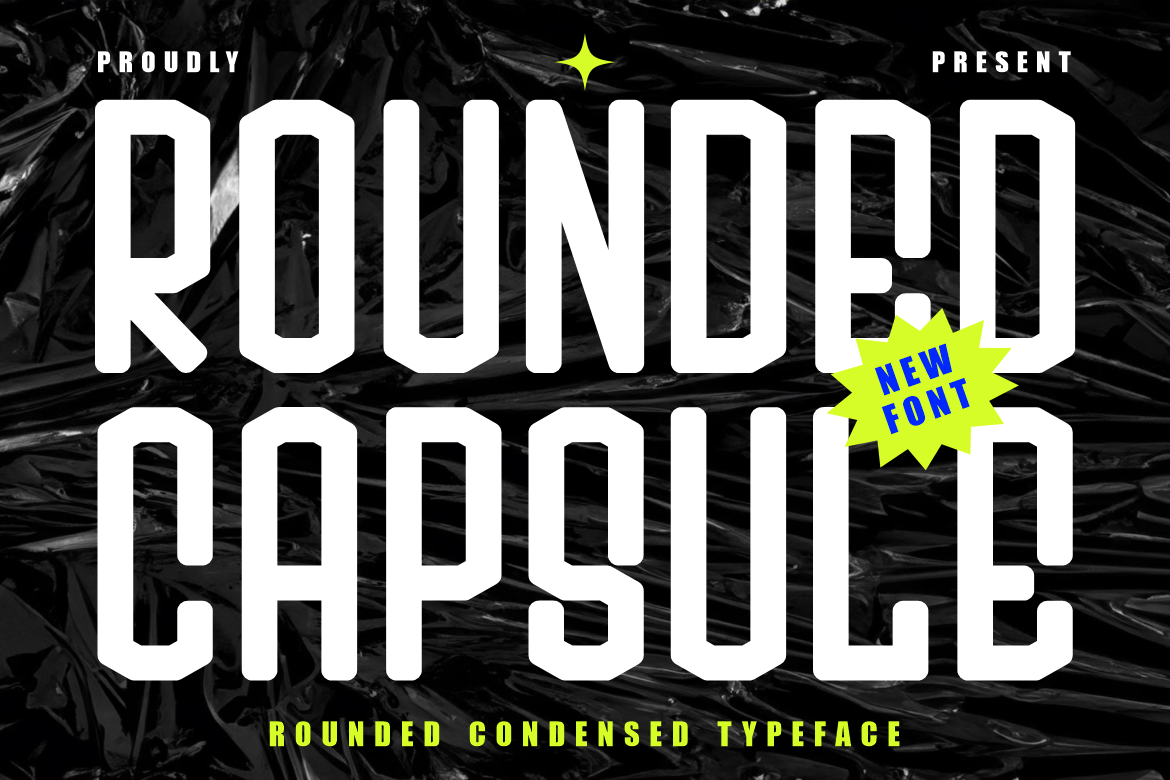
Rounded Capsule Condensed Font
Rounded Capsule Condensed Font brings a sleek condensed structure paired with smooth rounded edges that create a refined modern look. Each character is tall and narrow, giving the typeface a compact appearance that saves space while staying highly readable. The strokes are moderately thick with consistent width, producing a balanced weight that feels firm but not heavy. Its rounded terminals soften the entire composition, adding a subtle friendliness to the otherwise bold geometric form. This mix of tight proportions and softened shapes makes the font ideal for designs that want a clean, fresh, and contemporary identity. Rounded Capsule Condensed Font stands out through its capsule-like silhouette, precise construction, and strong visual rhythm.
This font suits a wide range of modern projects such as branding, posters, advertising layouts, editorial titles, and digital promotions. Its condensed width works well for long headlines, while the rounded form brings a stylish and approachable tone. Designers can apply it to product packaging, film titles, business marketing, music covers, magazine spreads, stickers, and event graphics. Its versatility allows it to shine in both minimal and expressive concepts, delivering clarity and personality in every application. Rounded Capsule Condensed Font is crafted for creators who want a distinctive condensed style that blends modern geometry with soft edges, resulting in impactful and memorable typography.